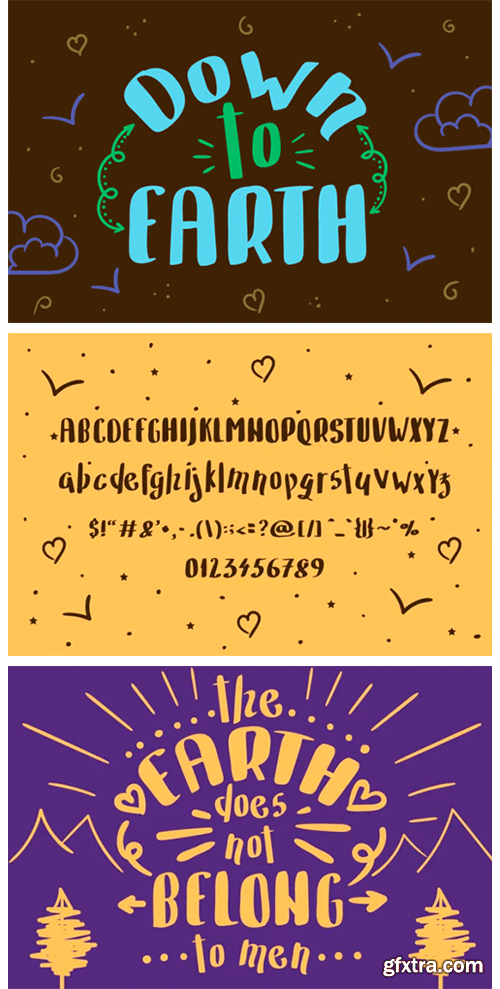
Down to Earth Font
Down to Earth is a playful font. It’s bold and rounded and has a earthy feeling to it. Great for decorating kids projects, but can be also used in a variety of playful projects.